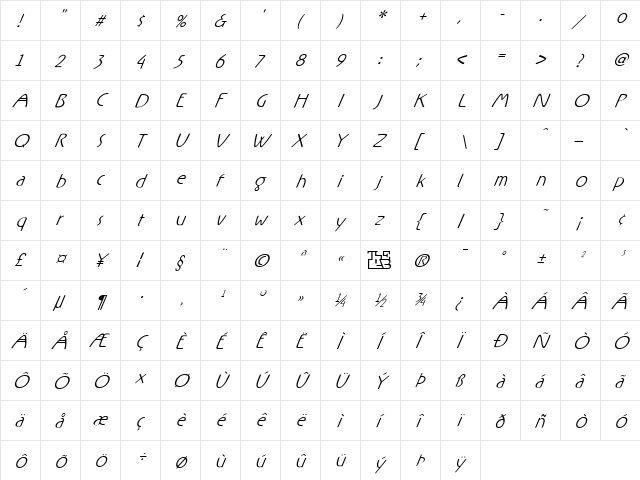
Rx-FiveOne Regular
Design Context for Rx-FiveOne Typeface
Rx-FiveOne offers clean, dependable letterforms without strong stylistic allegiance, making it a practical choice for designers who need flexibility.